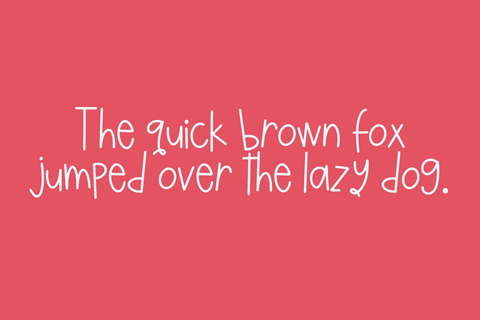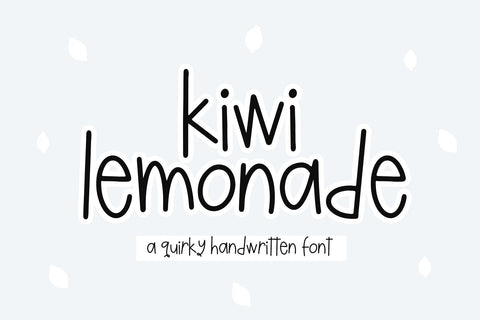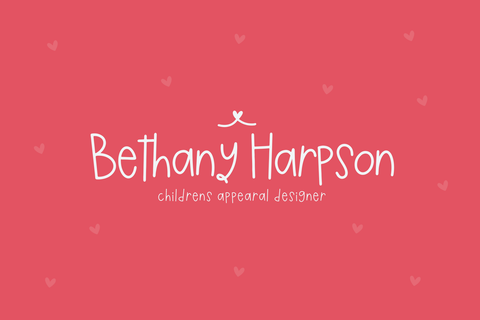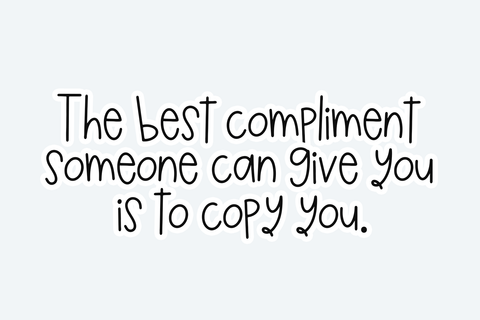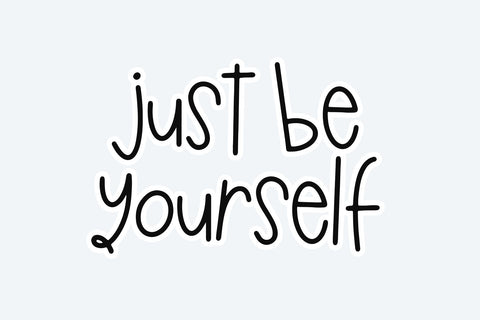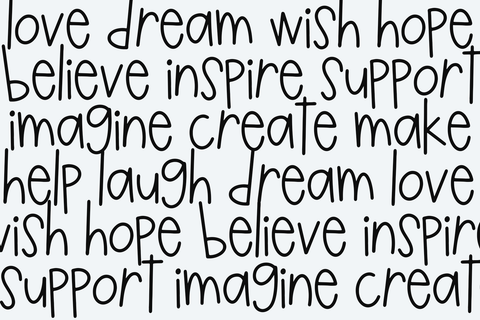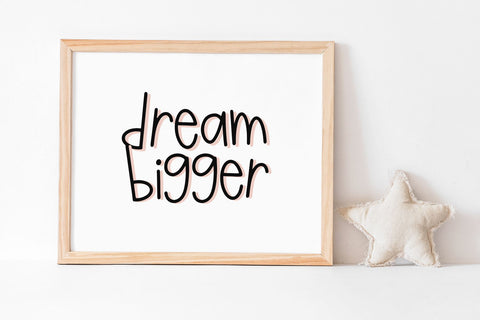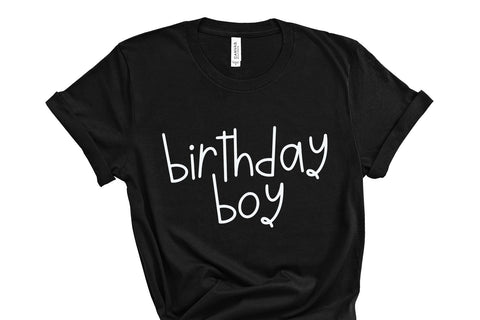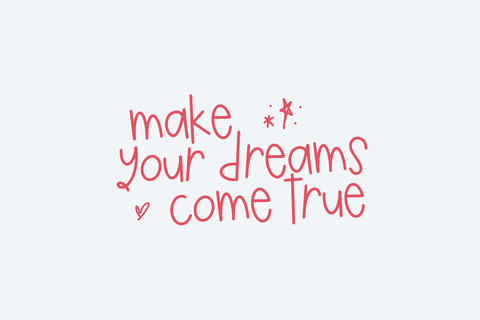
Kiwi Lemonade - Fun Handwritten Font
Kiwi Lemonade is a quirky handwritten font!
This font is perfect for quotes, shirt designs, websites, branding, children's designs, svg designs, blogs, logos, invitations and more!
Most accent characters included.